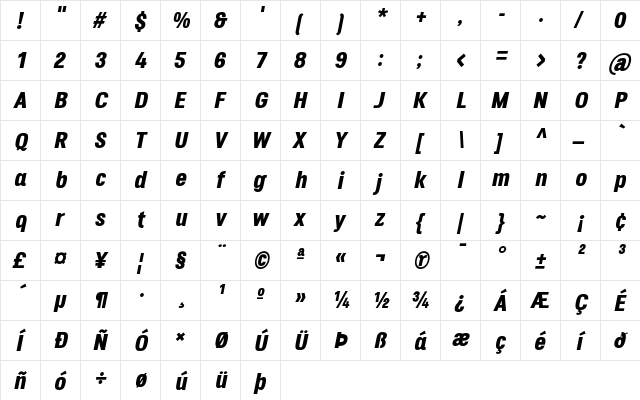
Octagen Black Black Italic
Design Context for Octagen Black Typeface
Octagen Black takes a measured approach to typography — its balanced proportions and neutral character make it a reliable workhorse for both digital and print work. The dynamic lean of this cut emphasises speed and emphasis in any layout.
Pro Tip: Use Octagen Black for emphasis, pull quotes, and subheadings where its slanted energy can add rhythm to the layout.